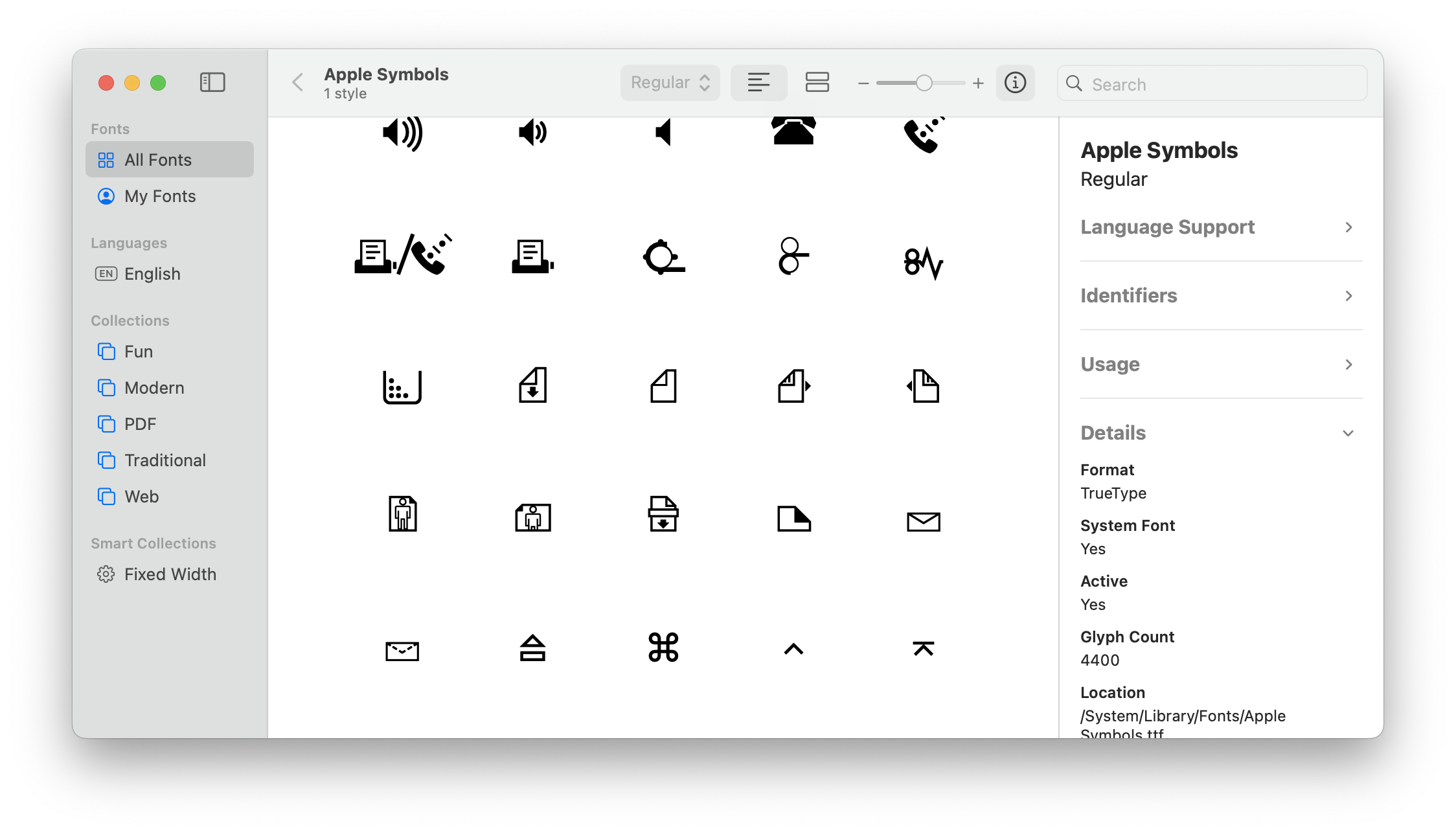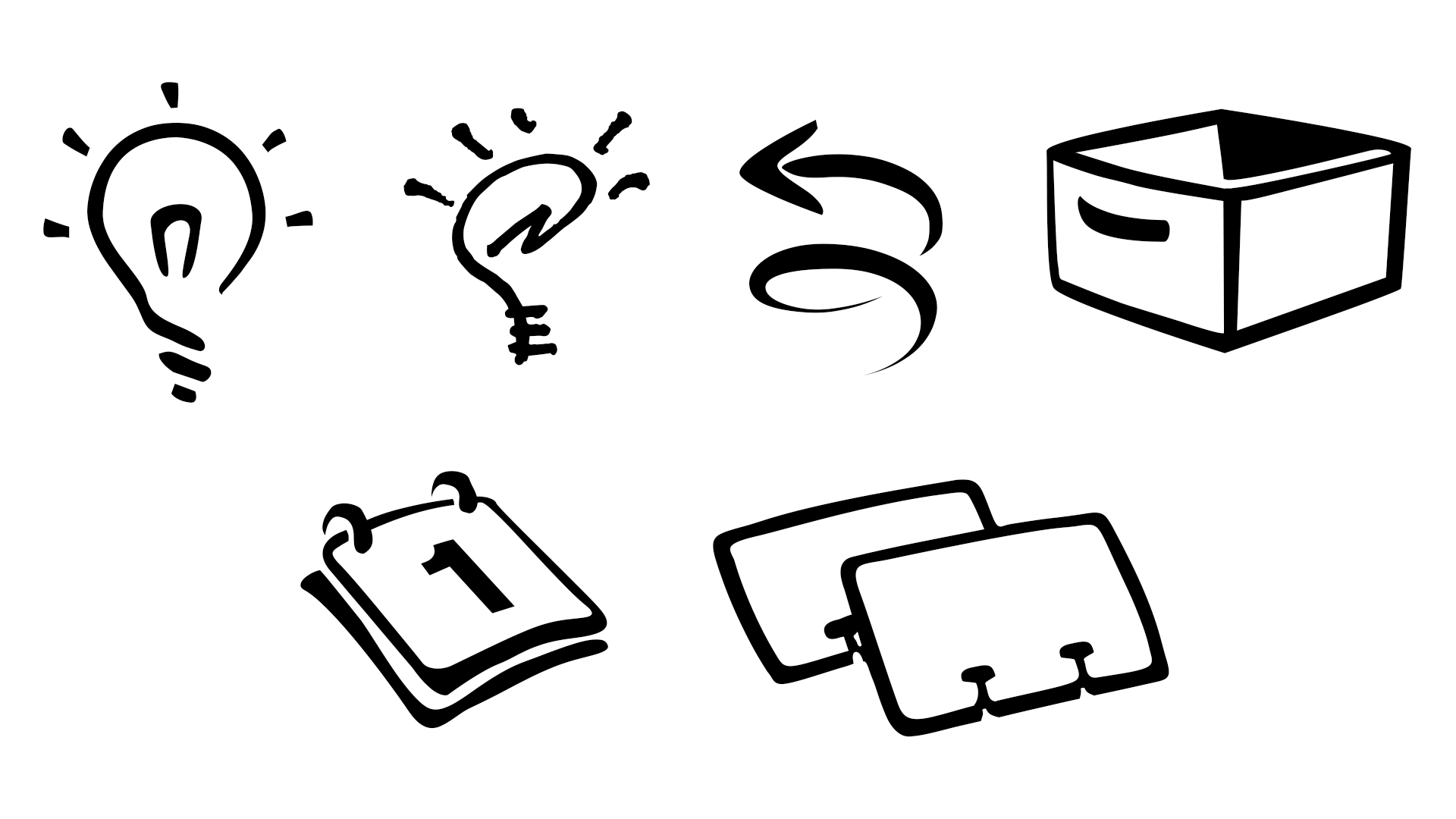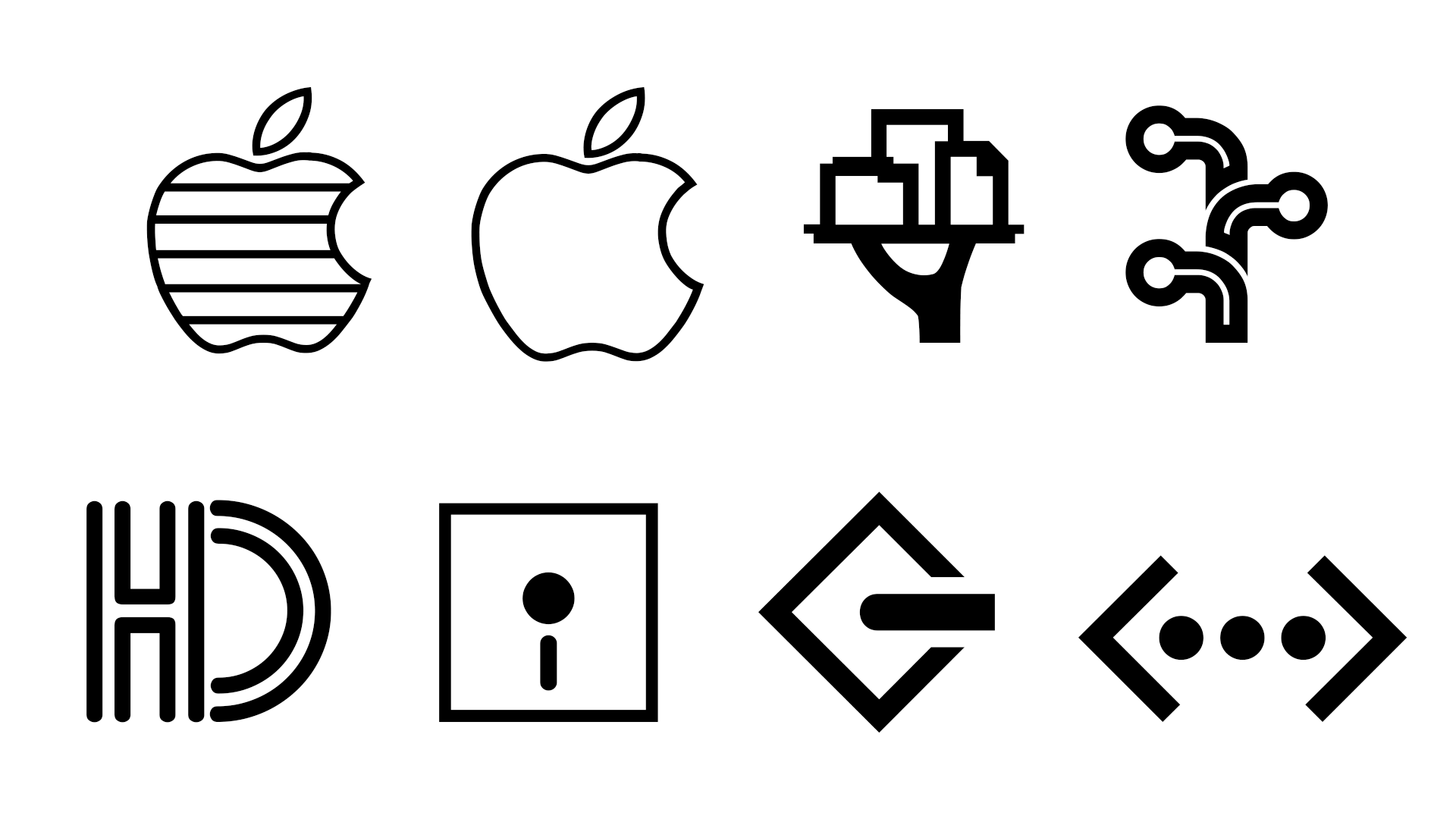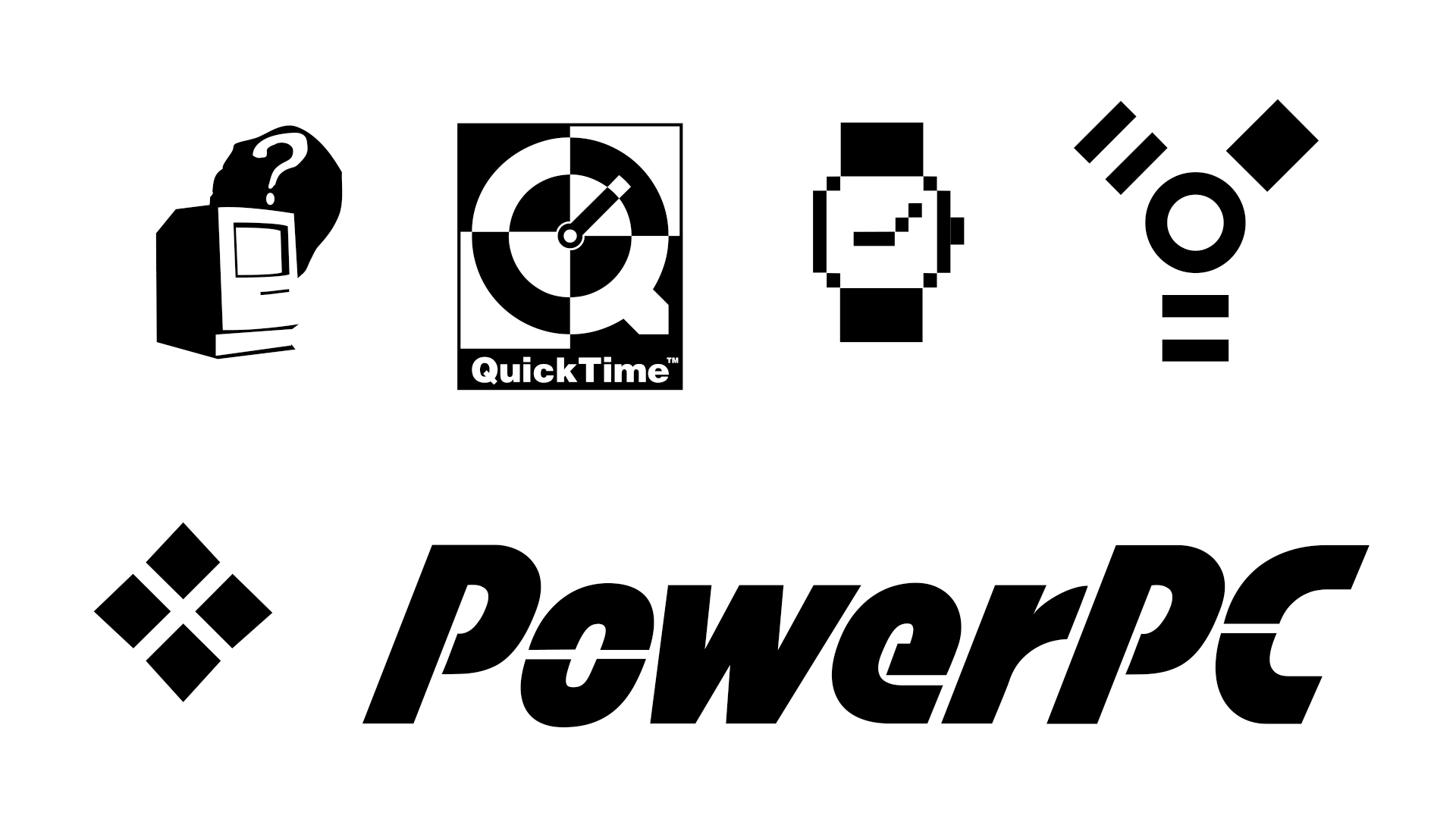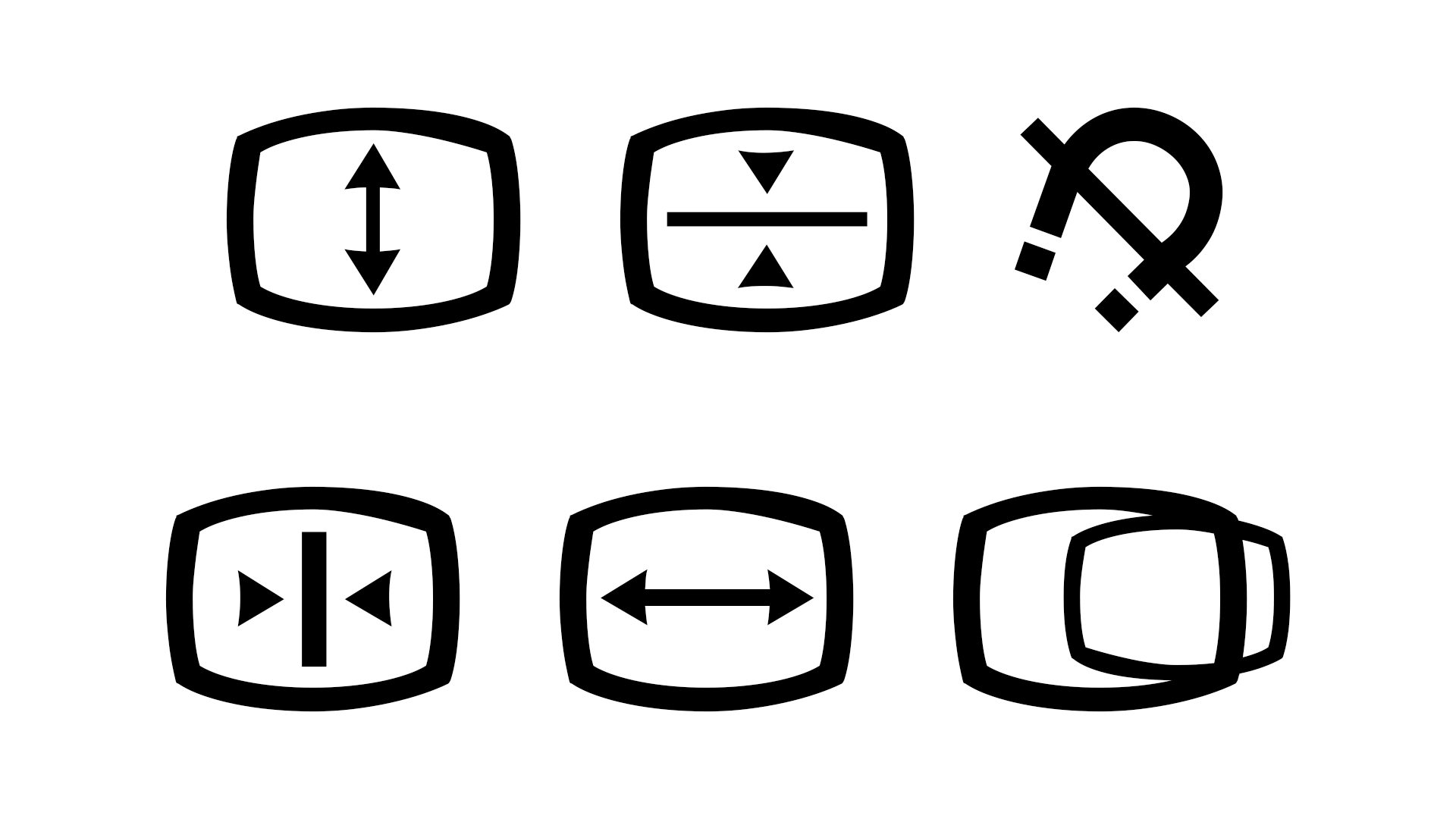
Apple's history is hiding in a Mac font
FireWire, the Newton PDA, and other technologies from Apple's past are still hiding in macOS.
A MacBook Air surrounded by various retro icons.
Rome wasn't built in a day, and the same is true of desktop operating systems. The modern versions of Windows, macOS, and Linux we know and (sometimes) love today represent decades of iteration and overhauls, but much of that legacy is invisible. New design languages and interfaces show up every few years, and in the process, old applications and designs are covered up or replaced.
It doesn't take long to find legacy holdovers in today's Windows 11—for example, that Windows 3.1-era file picker is still hanging around. The macOS platform is a much different story, as Apple frequently rips out or redesigns core system components. You can't even (natively) run games or applications more than a few years old on a modern Mac, so finding components undisturbed for decades is a rarity. Even the built-in Chess game got an update recently.
However, there is one place where PowerPC processors, Apple's Newton PDAs, and other relics of Apple's past are still present in modern Mac computers: the Apple Symbols font.
Apple Symbols font in the Font Book application.
Apple released Mac OS X 10.3 Panther in 2003, and one of its many improvements was a new system font called Apple Symbols. It included many common Mac and Apple symbols in a standard TrueType font with Unicode characters, so they could be easily used across Mac applications and documentation. Apple now provides the SF Symbols library as the main way for Mac applications to use common system icons and animations, but the original font is still there.
The current version in macOS Sequoia 15.1 includes 4400 glyphs, with the copyright information listed as "© Copyright 2003-2006 by Apple Computer, Inc." I have Mac OS X Panther on a partition on my PowerMac G3, and I pulled that font version for comparison—it has 1224 glyphs.
Many of the glyphs in the Apple Symbols font are general purpose icons, corresponding to standard Unicode characters, but there are some Mac-specific images. The font has several variations of the Apple logo, as well as icons for a generic floppy disk, Sony's trademark for high density ('HD') floppy disks, SCSI, Ethernet, ADB (a pre-USB connector for keyboards and mice), and AppleTalk.
Several Apple logos and I/O symbols.
There are also references to the Apple Newton, the company's PDA lineup that launched in 1993. The Newton platform was killed off in 1998, as one of many consolidation efforts initiated after Steve Jobs returned to the company. The font has two variations of the lightbulb Newton logo, as well as the system icons for undo, extras, dates, and names.
Several Newton icons.
We can also find a Mac help icon that resembles the original Macintosh, the wristwatch that was used as a wait cursor in classic Mac OS, and a FireWire icon. The next release of macOS is dropping support for FireWire, but perhaps it will stick around in this font. There's also a pattern of four diamonds that presumably represents Boot Camp, the software Apple made for Intel-based Macs to boot into Windows.
It's also pretty fun to see the stylized logo for PowerPC, the CPU architecture used by Mac computers from 1994 until 2006. Even though PowerPC was not widely used in desktop computers outside of Apple products, it found some success in game consoles like the Wii and PS3, and it powered the Curiosity and Perseverance rovers on Mars. PowerPC lives on as the Power ISA architecture, primarily in servers built by IBM.
Icons for help, QuickTime, wait, FireWire, Boot Camp, and FireWire.
The old icon for QuickTime, Apple's multimedia framework, might be my favorite discovery in the font. It's not just an old logo, it's the original QuickTime logo that was replaced in 1994 by the more recognizable blue Q. I'm not sure why Apple decided in 2003 to preserve the original design in a system font library, but it's fun to see either way.
One more interesting group of icons to highlight: there are some symbols for monitor output and adjustment, including one for degaussing a CRT screen as a magnet with a cross through it. Apple released its final CRT monitor in 2000, though the eMac with an integrated CRT display continued to be sold until 2006.
If you have a Mac, you can check out the Apple Symbols font by opening the Font Book application, searching for Apple Symbols and selecting it, then scrolling past the preview to the Repertoire section. Windows has similar collections of retro icons spread across various system libraries, but it's more surprising that Apple hasn't cleaned out its symbols.